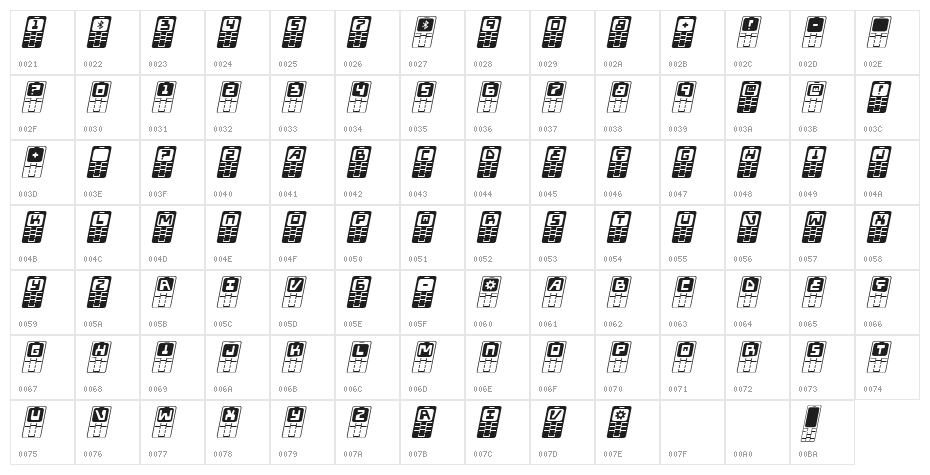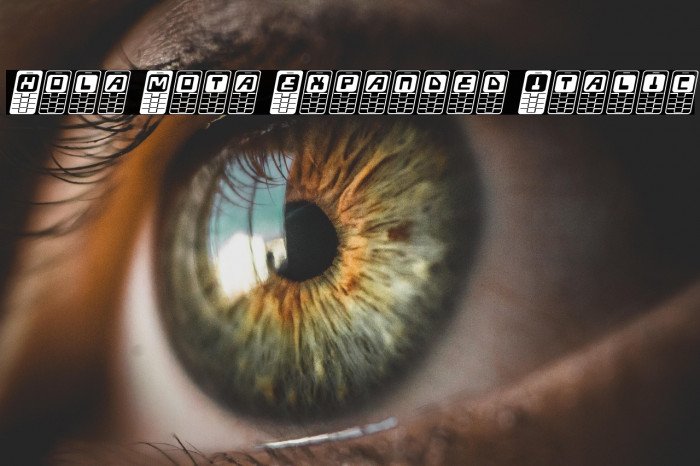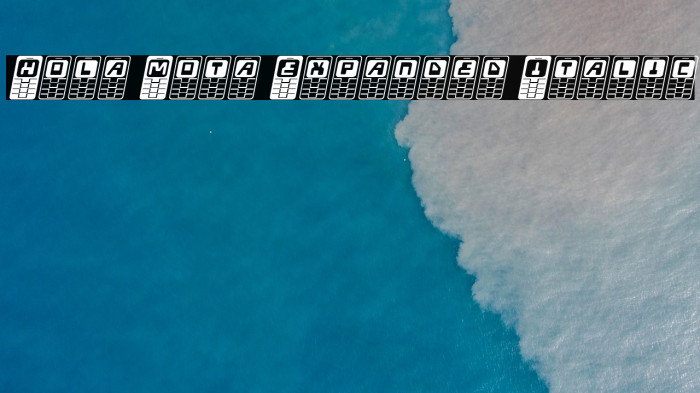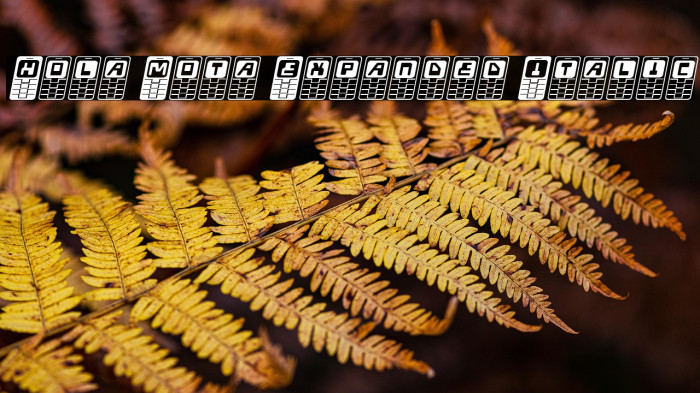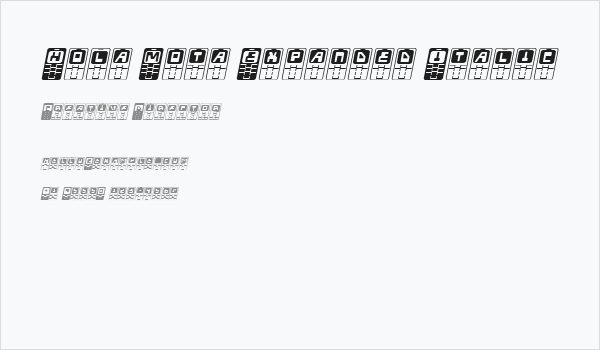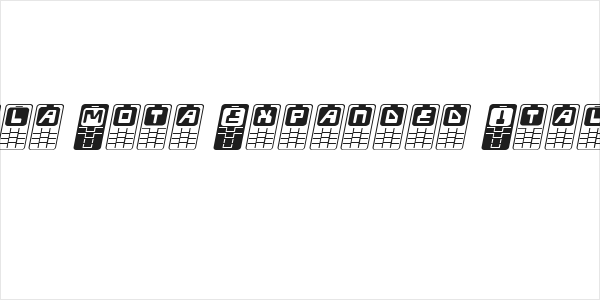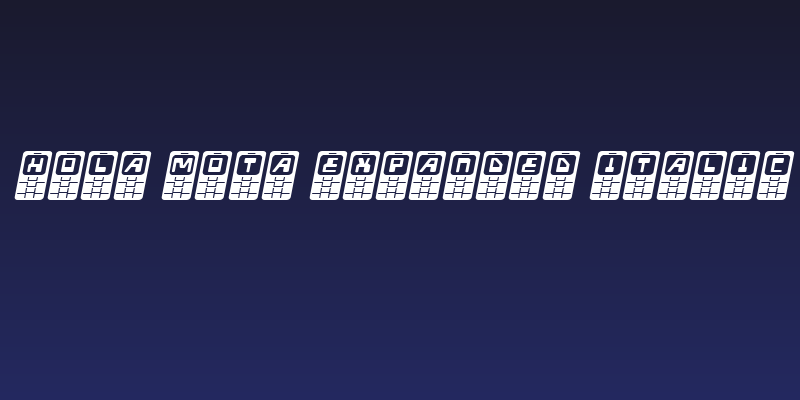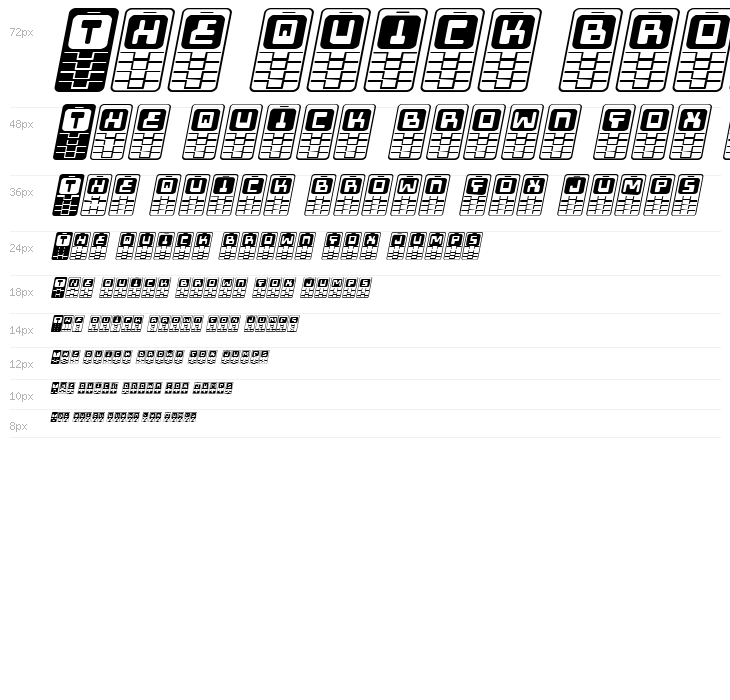
Hola Mota Expanded Italic Font
Hola Mota Expanded Italic Description
This font features a unique and playful design that mimics the appearance of a mobile phone keypad. Each character is enclosed within a rectangular shape, resembling a button, with a bold and expanded style. The italic slant adds a dynamic and modern touch, making it stand out. The characters are well-defined with a high contrast between the thick strokes and the negative space, enhancing readability. The overall style is decorative and contemporary, suitable for creative and tech-themed projects.
| Proposed Projects | Ideal for tech-themed designs, digital art projects, posters, and branding for technology companies. |